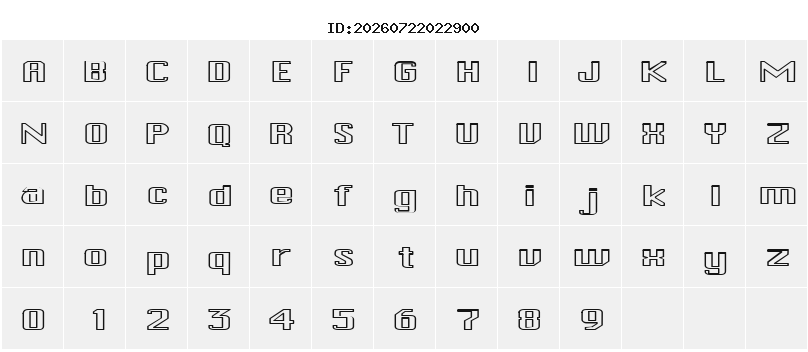
FZ BASIC 46 HOLLOW EX Preview
• Font Name: FZ BASIC 46 HOLLOW EX
• Full Font Name: FZ BASIC 46 HOLLOW EX
About FZ BASIC 46 HOLLOW EX.ttf
FZ BASIC 46 HOLLOW EX.ttf is a modern, elegant sans-serif font designed for ultimate readability and visual harmony. Perfect for branding, headlines, web design, and print materials.